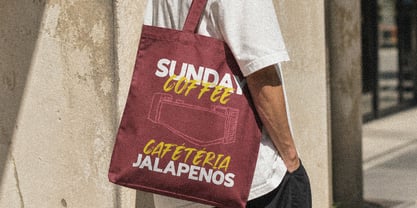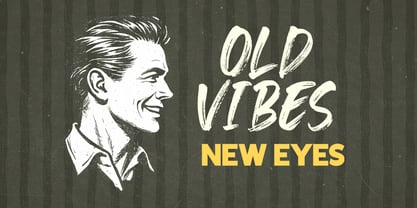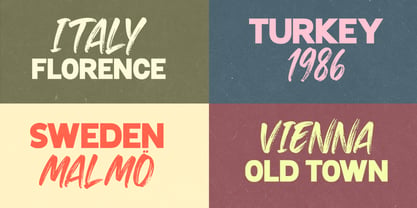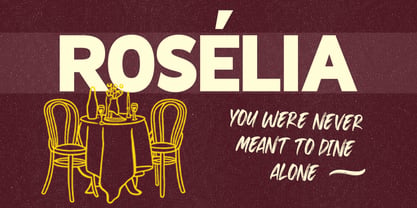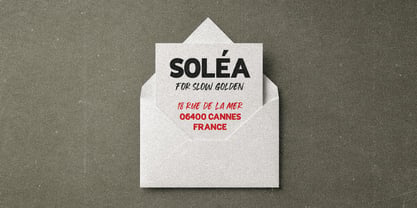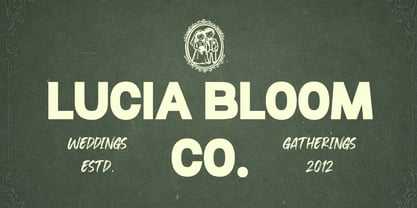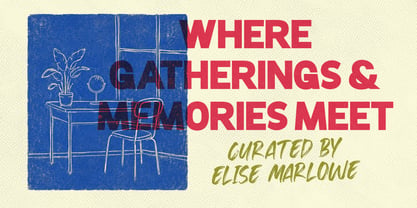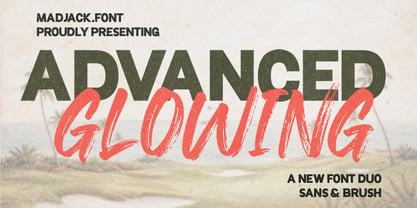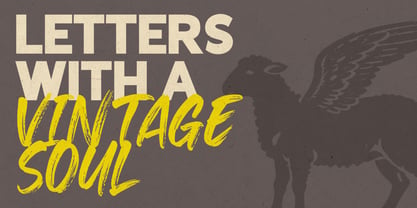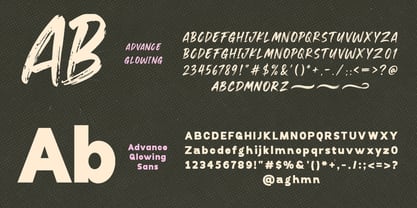
Advance Glowing Sans
by madjack.font
The Advance Glowing Sans Font Family was designed by Zaki Muhammad and published by madjack.font. Advance Glowing Sans contains 2 styles and family package options. More about this family
Advance Glowing is a handcrafted font duo consisting of a bold sans font and a brush script. You can use this font for a variety of purposes, especially for designs that require a retro and classic feel, such as posters, logos, quotes, and branding. The alternates, ligatures, and lines in the script font will enhance your projects. This font duo also supports multiple languages!
With graceful ligatures, harmonious contrast, and sophisticated letterforms, Advance Glowing is perfect for luxury branding, wedding invitations, editorial design, and any project that seeks to evoke beauty, sophistication, and a fresh sense of inspiration.